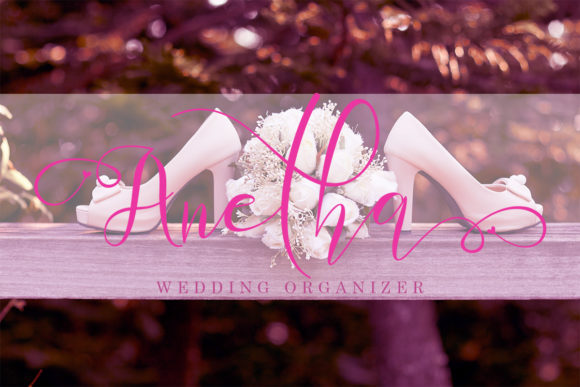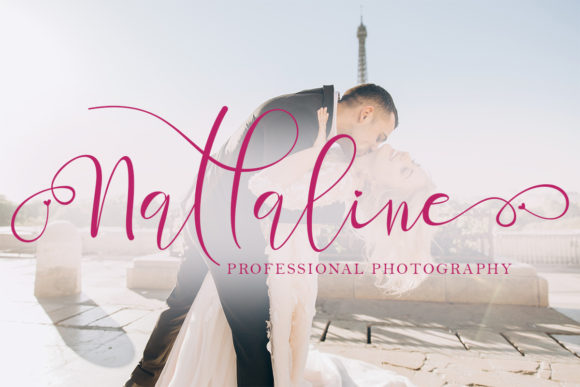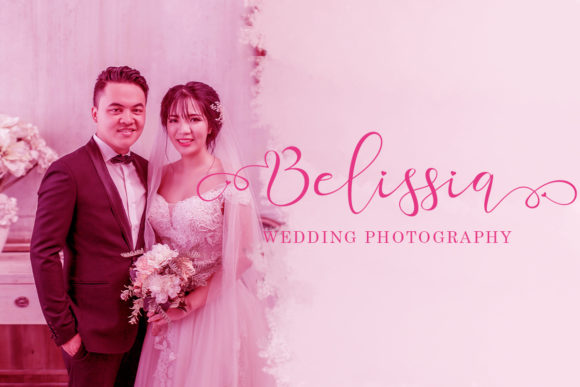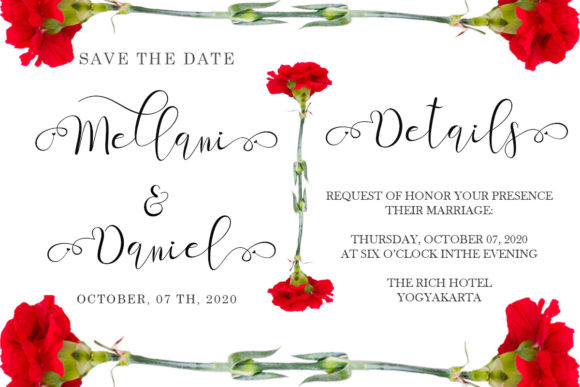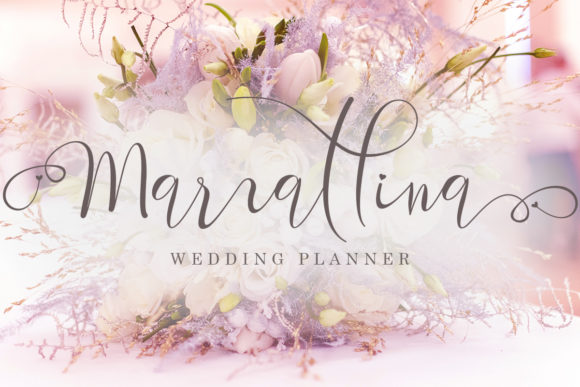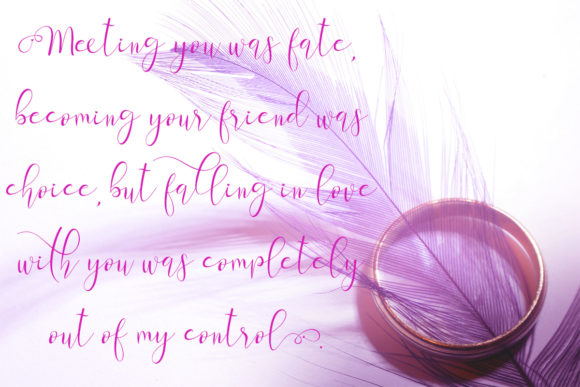
Introduction to Sherllia Font
Have you ever found yourself staring at a blank canvas, struggling to bring your creative vision to life? The blank page can be intimidating, but with the right tools, the possibilities become endless. As designers, we’re constantly on the lookout for high-quality design resources that help us elevate our projects and make them truly unforgettable.
That’s where the exquisite Sherllia Font comes in – a masterfully designed handwritten font that’s about to become your new favorite. With its classy calligraphic influences and fresh, contemporary feel, Sherllia Font is the perfect addition to any creative project. Whether you’re working on a design project or simply want to add a touch of elegance to your documents, this font is sure to impress.
Key Features of Sherllia Font
- High-quality, professional design for creative projects, perfect as a design resource.
- Transparent background, making it easy to customize and combine with other design elements.
- Unique, elegant script style, perfect for adding a touch of sophistication to your designs.
Honest Review: Sherllia Font
I recently came across the Sherllia Font, and I must say it’s a great addition to any designer’s toolkit. As a design enthusiast, I appreciate high-quality fonts that can elevate my creative projects.
What works well about the Sherllia Font is its unique and elegant design. The font features a transparent background, which makes it perfect for designs that require a clean and minimalist look. The free download option is also a huge plus, as it allows designers to experiment with the font without breaking the bank.
- ✨ Unique and elegant design
- ✨ Transparent background for a clean look
However, there are a few limitations to consider. The font may not be suitable for projects that require a bold or dramatic look, as it’s more geared towards subtle and sophisticated designs.
- ⚠️ May not be suitable for bold or dramatic designs
Overall, I’m impressed with the Sherllia Font as a design resource. Its high-quality design and transparent background make it a great choice for designers looking to add a touch of elegance to their creative projects.
Tips for Getting the Most Out of Sherllia Font
For best results, use the Sherllia Font on a transparent background or a high-quality image. Experiment with different font sizes and styles to find the perfect combination for your design. You can also pair the Sherllia Font with other high-quality design resources to create a cohesive and professional look.